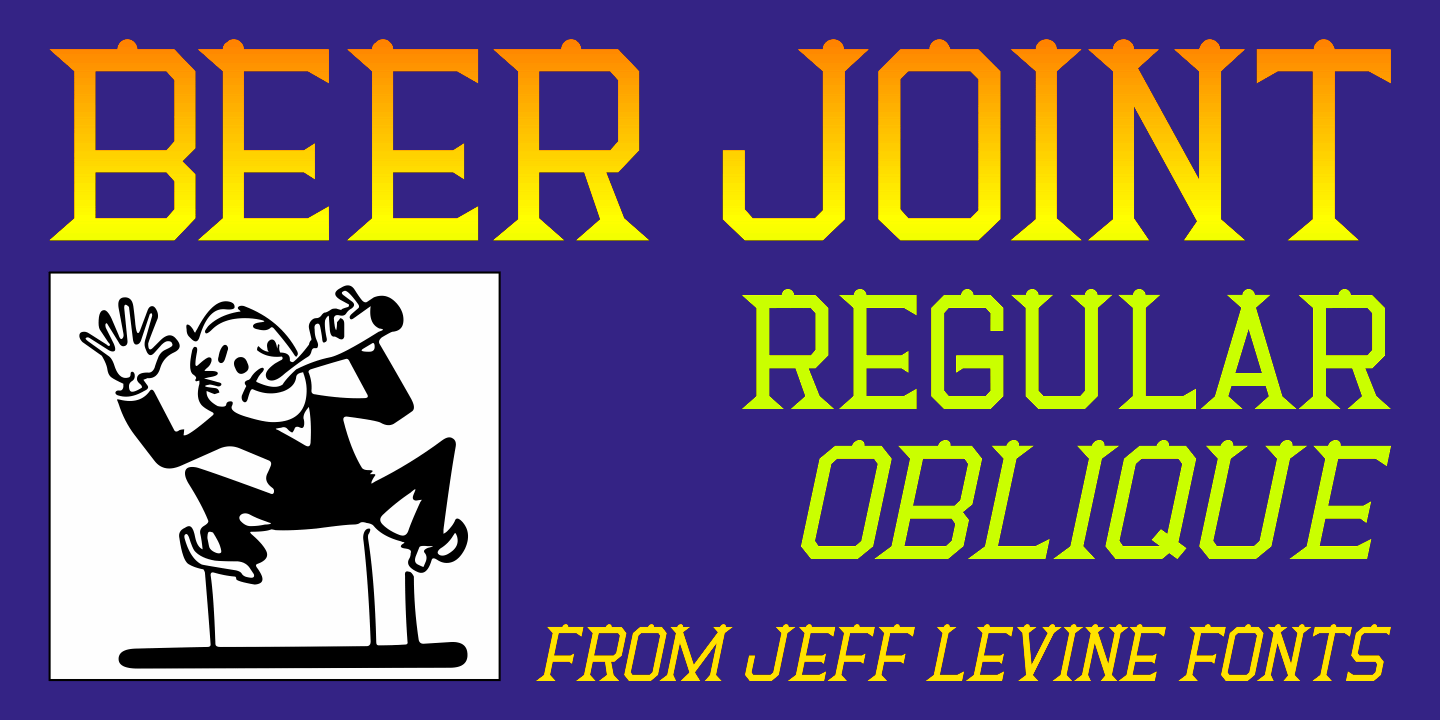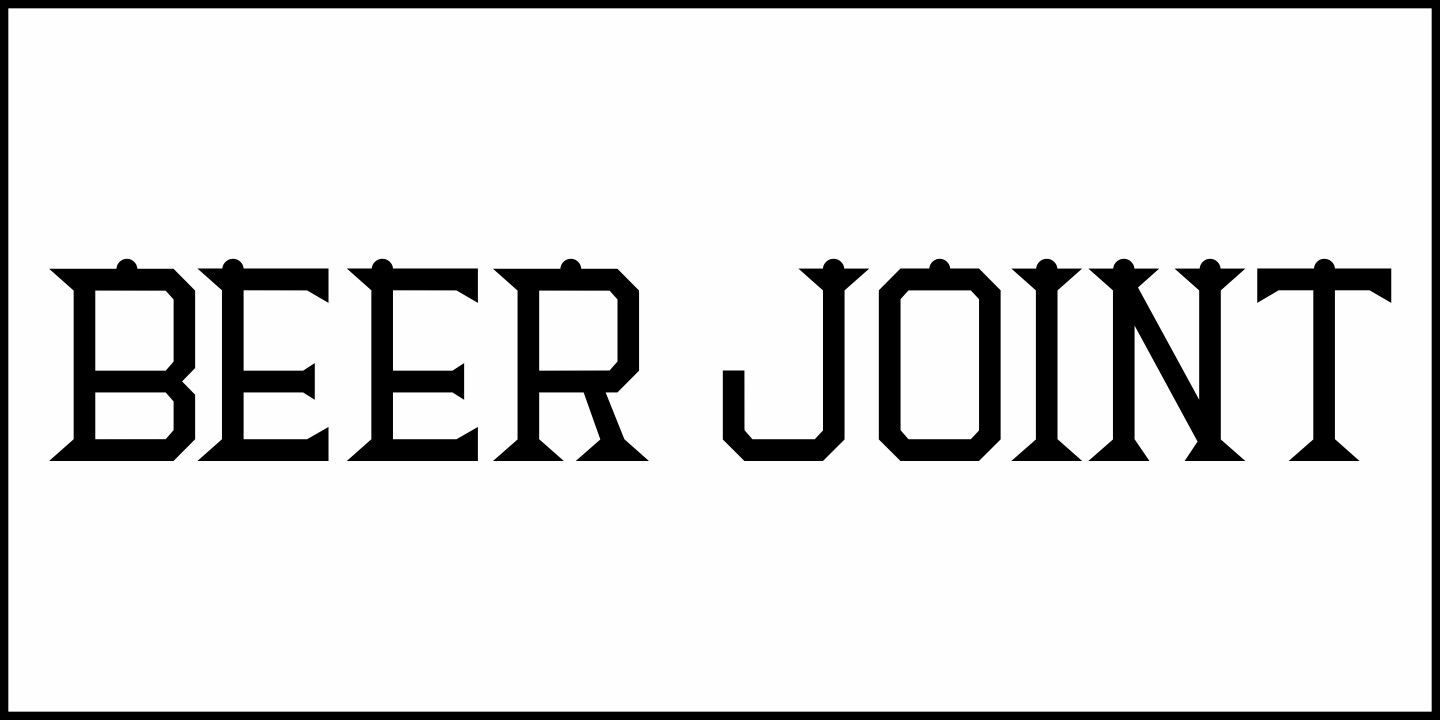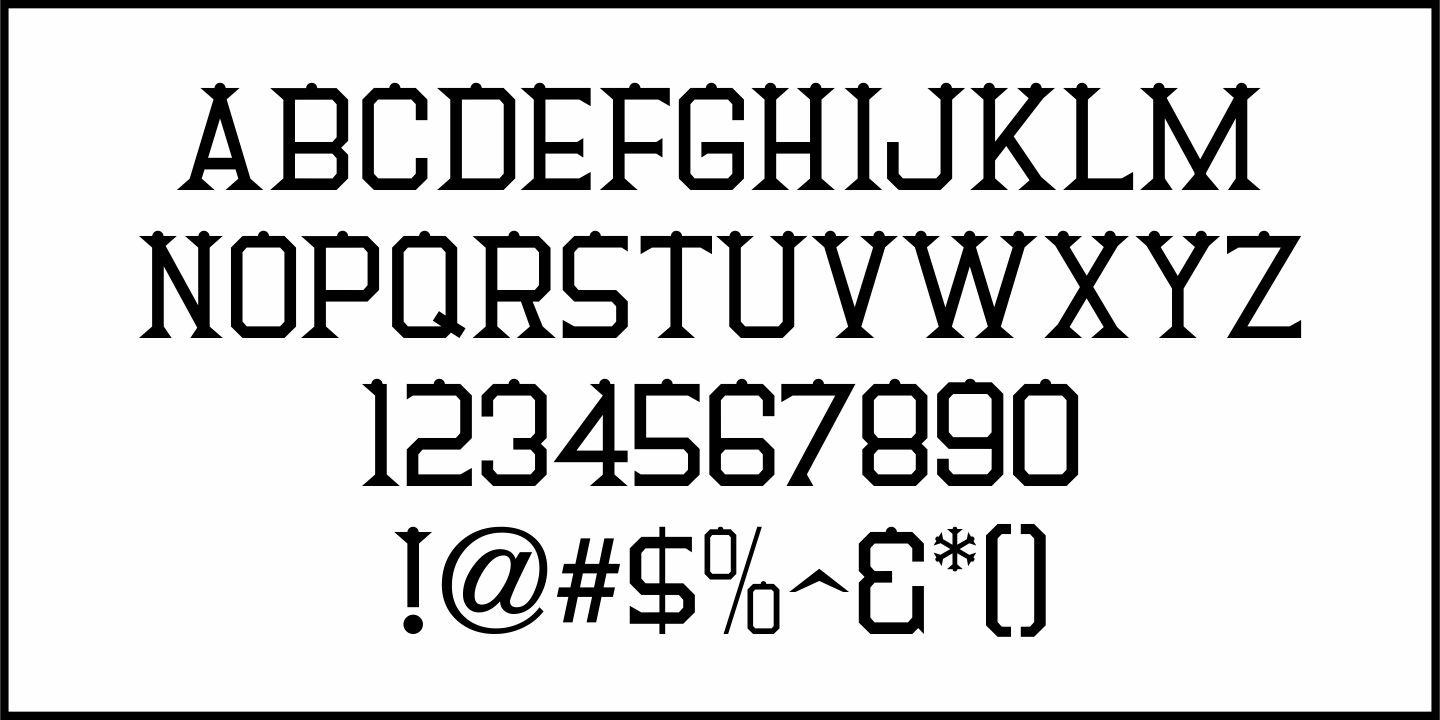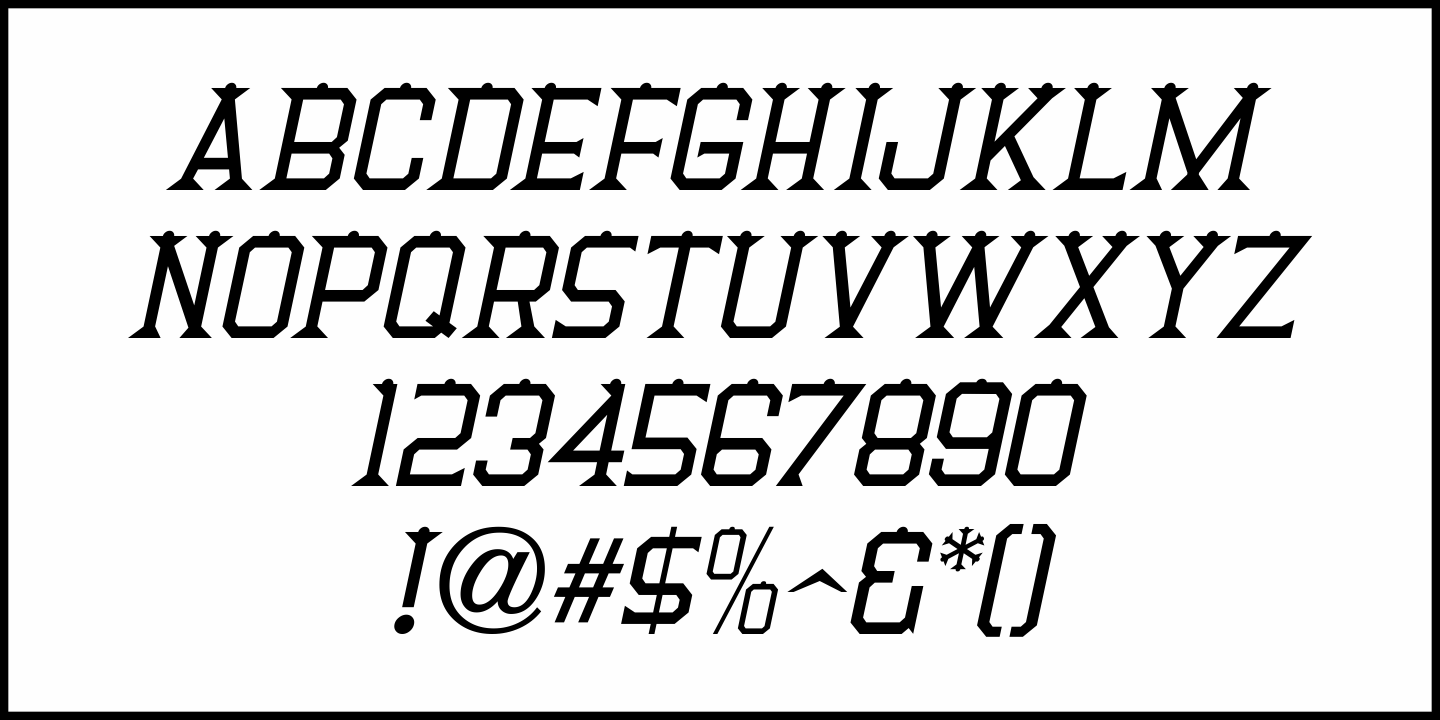
Beer Joint
A vintage photograph of the Man at the Wheel Saloon in San Pedro, CA [circa 1895] provided an excellent type design source with the unusual lettering on the bar's sign.
Basically a spurred serif design, the unusual characteristic of the type style is the 'bumps' or 'dots' on the tops of each letter.
This has been redrawn digitally as Beer Joint JNL, and is available in both regular and oblique versions.
Beer Joint JNL Regular by Jeff Levine Fonts